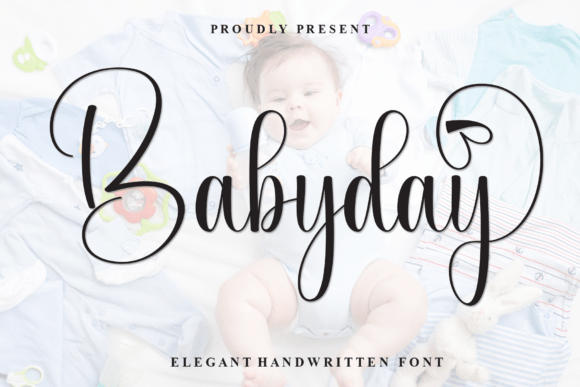
Discover the Sweet Charm of Babyday Font
Have you ever sat down with a blank sheet of paper, a cup of coffee, and a blank mind, only to have a brilliant idea strike you at the most unexpected moment? For designers, these moments are the spark that ignites a new project, a fresh perspective, or a creative breakthrough. And that’s exactly what happened when we stumbled upon the Babyday Font – a charming and warm handwritten display font that exudes both sweetness and friendliness.
Whether you’re designing a wedding invitation, a greeting card, or a marketing campaign that needs a pinch of creativity, the Babyday Font is the perfect addition to your design arsenal. Its delightful and playful attributes inject a touch of fun and joy into every project, making it a valuable asset for any designer looking to add a personal touch to their work.
Babyday Font Key Features
- Font Style: Babyday Font is a handwritten font, ideal for creating a personal and childlike atmosphere.
- Unique Characteristics: The font features unique, hand-drawn letterforms with subtle imperfections, giving it a charming and organic feel.
Designer Review: Babyday Font
Overall, I was excited to dive into the Babyday Font, a custom script font designed to capture the whimsy and playfulness of parenthood. ✨ One of the first things I noticed was the beautiful, handwritten feel of the font. It’s perfect for designing nursery decor, baby announcements, or any other project that needs a touch of sweetness.
Some of the strengths of the Babyday Font include:
- ✨ Beautiful, cursive lines that give the font a personal touch
- ✨ A wide range of characters, including accented letters and punctuation
- ✨ Easy to read, even at smaller font sizes
However, there are some limitations to the Babyday Font:
- ⚠️ The font could benefit from more flexibility in terms of weight and style. The current version is quite one-dimensional.
- ⚠️ Some of the characters, particularly the numbers, feel a bit cramped or awkwardly designed.
- ⚠️ The font doesn’t support bold or italic styles, which can limit its use in certain design projects.
Overall, I think the Babyday Font is a lovely addition to any designer’s toolkit. While it may not be perfect, its unique feel and wide range of characters make it a great choice for projects that require a touch of whimsy and personality.
Getting the Most Out of Babyday Font
For optimal results, use Babyday Font in designs with a playful, whimsical feel. This font pairs well with pastel colors and minimalist graphics.
Babyday Font is commonly used for:
- Baby and kids-related designs (e.g., nursery decor, children’s books)
- Food and beverage branding (e.g., cafes, bakeries)